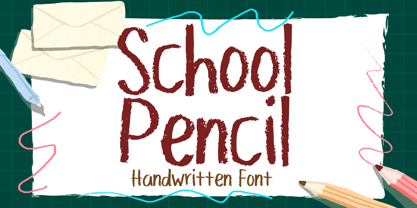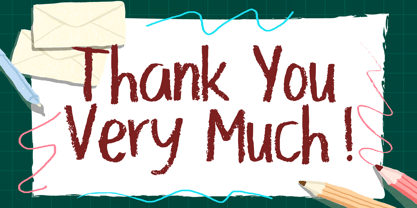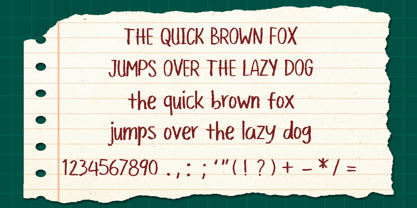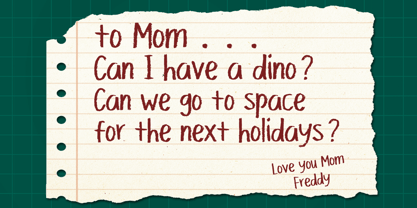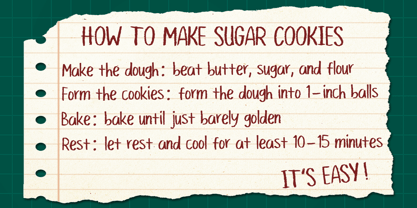
School Pencil
by Mvmet
The School Pencil Font Family was designed by Gabriel Valentinus and published by Mvmet. School Pencil contains 1 styles. More about this family
School Pencil is a fun daily use and suitable for everyday use font with pencil, crayon, graphite textures. It will elevate a wide range of design projects to the highest level. You can use this font for many design ideas such as stickers, t-shirt designs,merchandise designs, amazing logo designs, magazine or book covers, comics, cartoon drawings, daily typing, and many more. This font will add a super cool touch to your designs!
Designers: Gabriel Valentinus
Foundry: Mvmet
Mvmet is an Indonesia-based font studio which began making fonts in early 2020. Mvmet strives to make fonts fun and accessible for both the average computer user and professional designers, with original experimental fonts and affordable trend-setting commercial fonts. Mvmet also creates custom fonts for companies who want exclusive rights and a specific design for a typeface. Clients who have used Mvmet’s custom font services include some company in Indonesia and abroad.